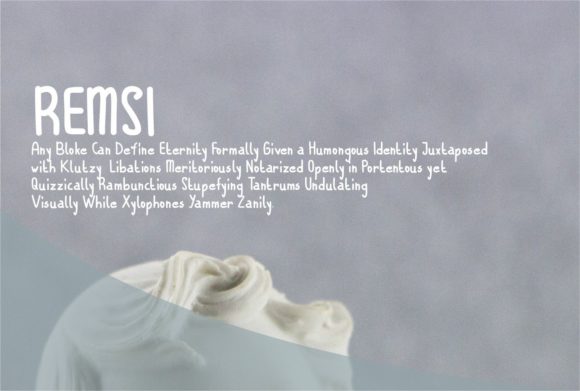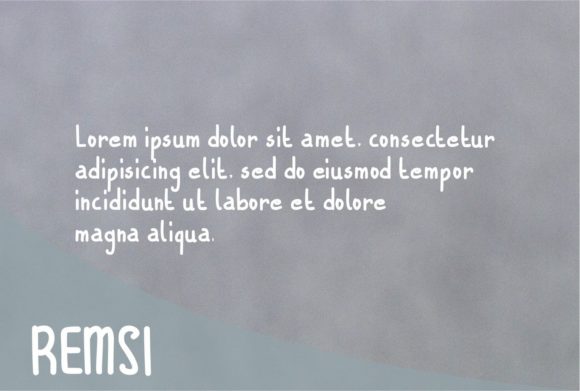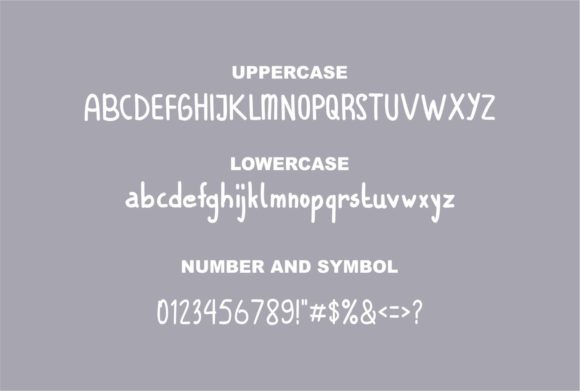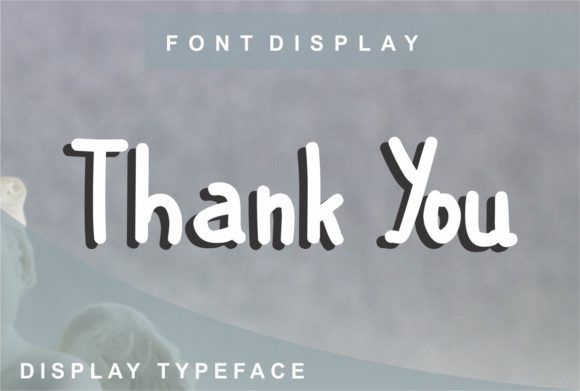
Introduction to Remsi Font
Remsi is a clean and adaptable display font.
It will look stunning on any poster, flyer or print Use this font for your designs and explore its endless possibilities.
Key Features of Remsi Font
Why Choose Remsi Font?